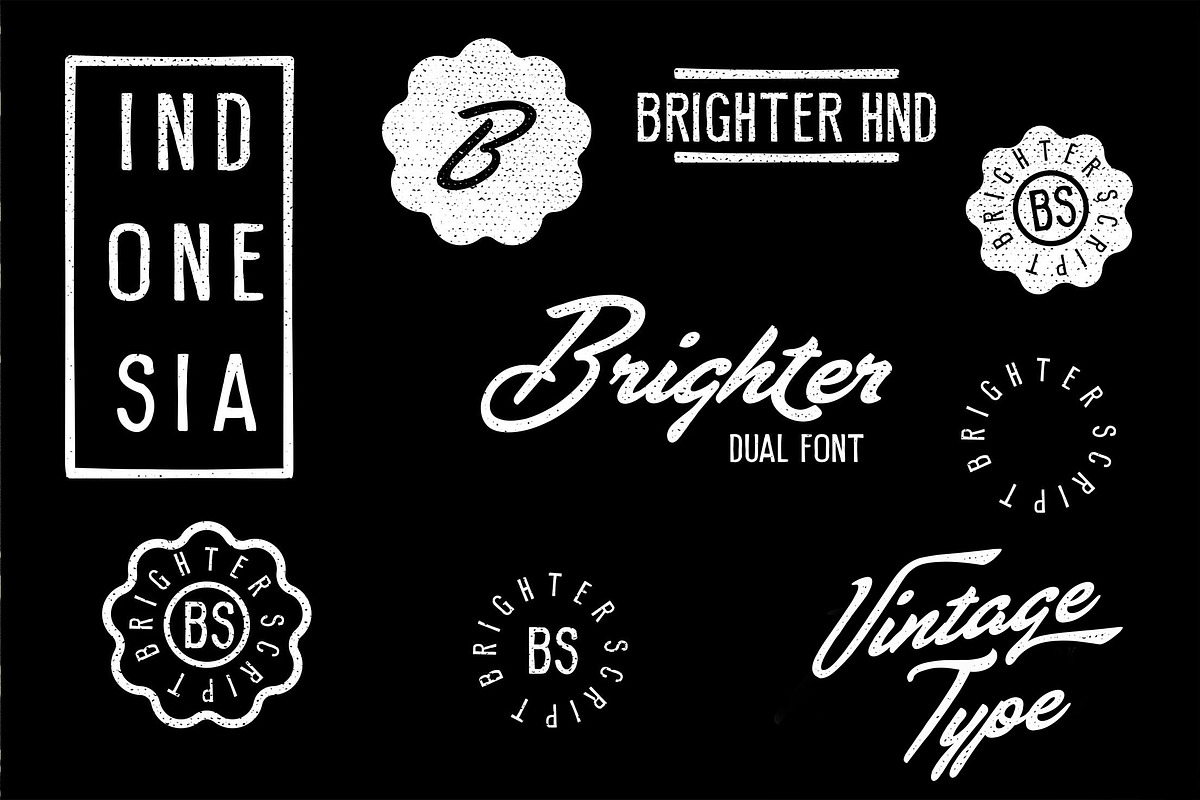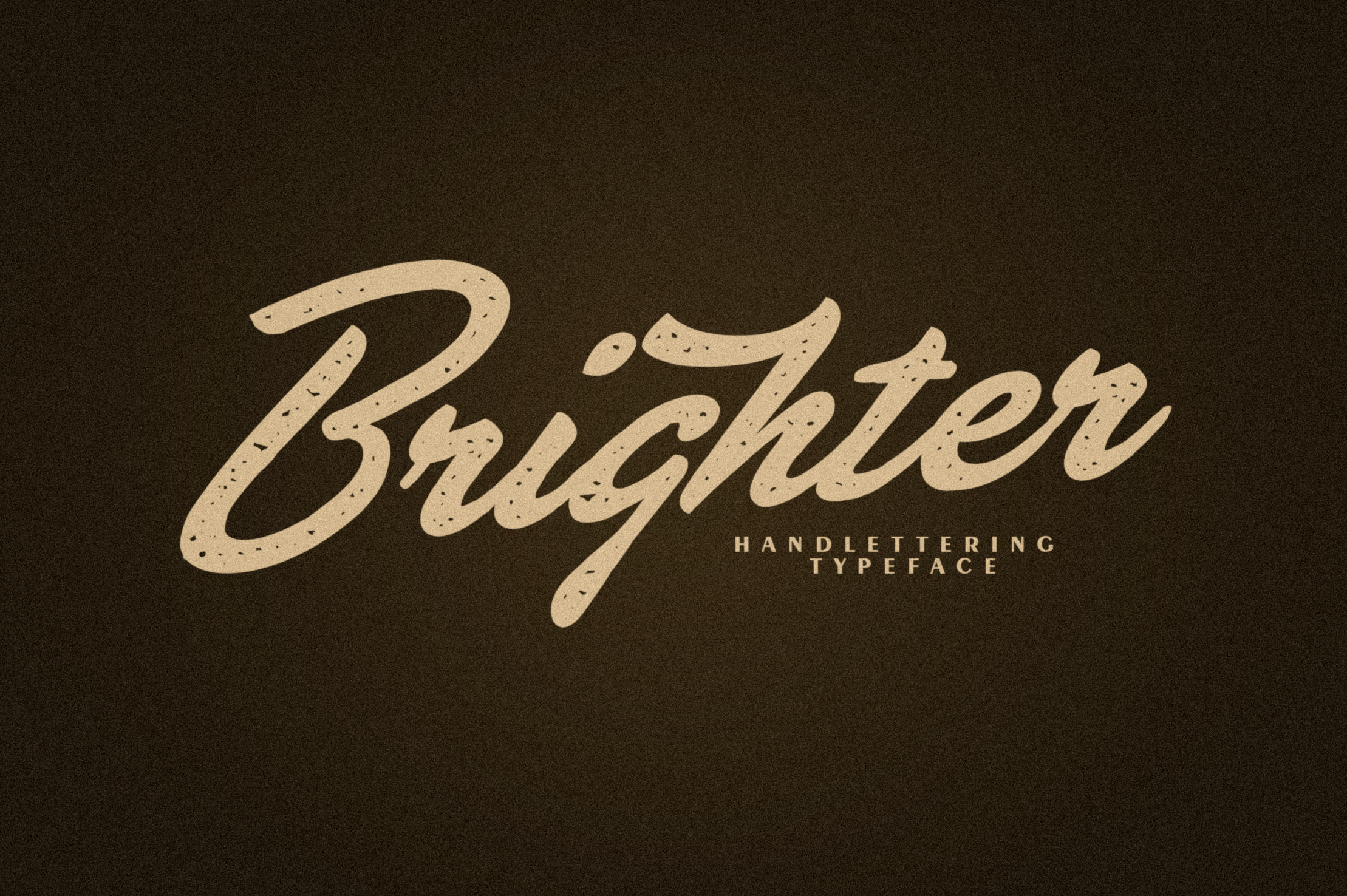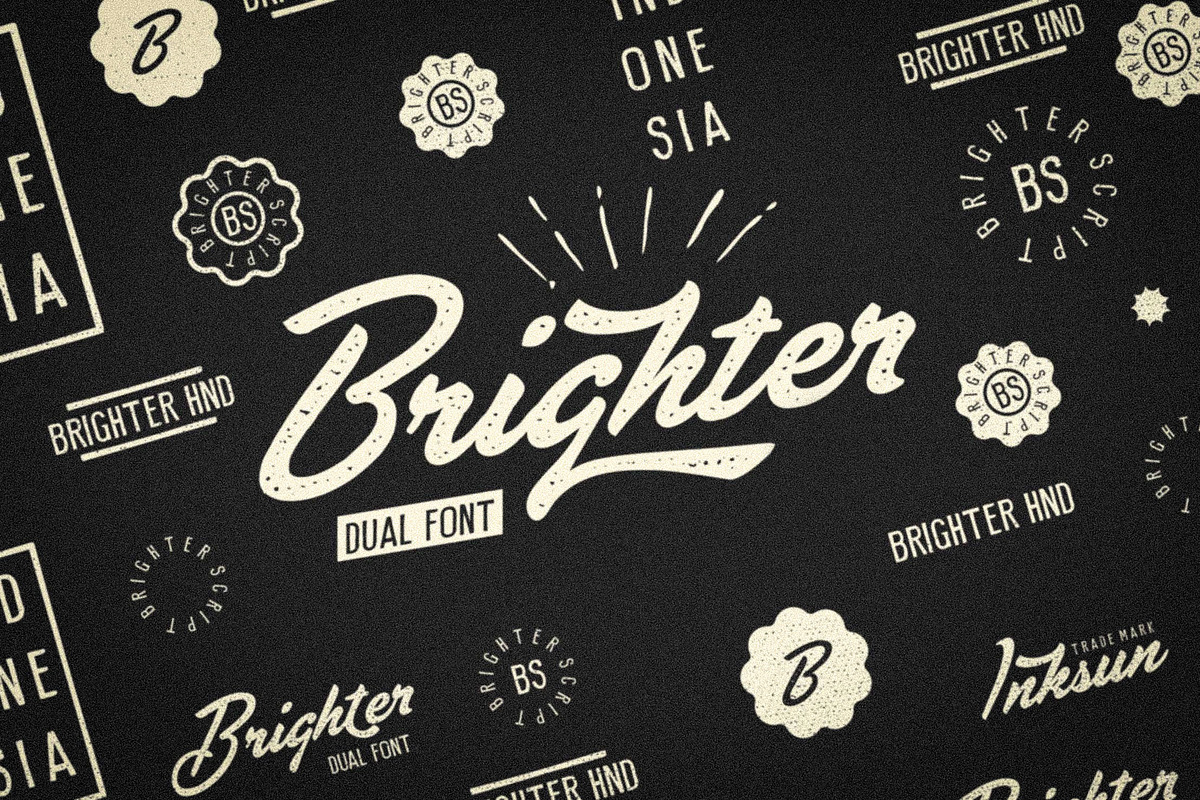
Brighter dual font
Product Description
Introductoryis a font with vintage style, equipped with alternate and ligature, this font is also accompanied by brigther HND, both of which are very suitable for posters, logos or anything vintage.Features